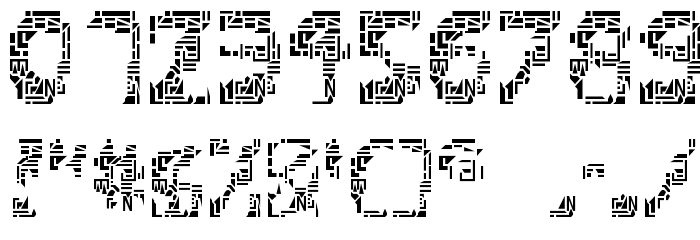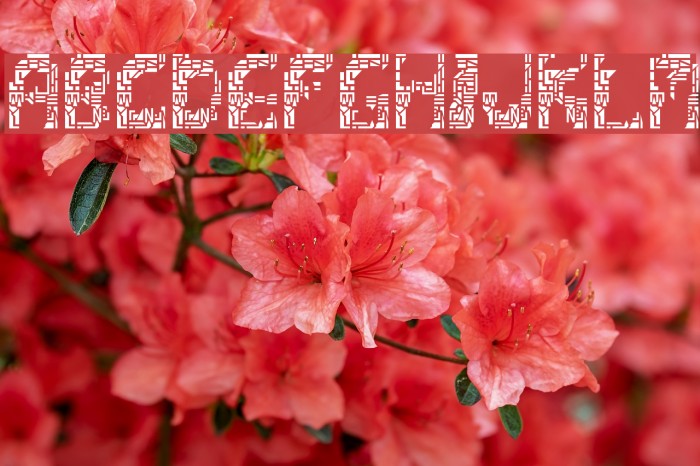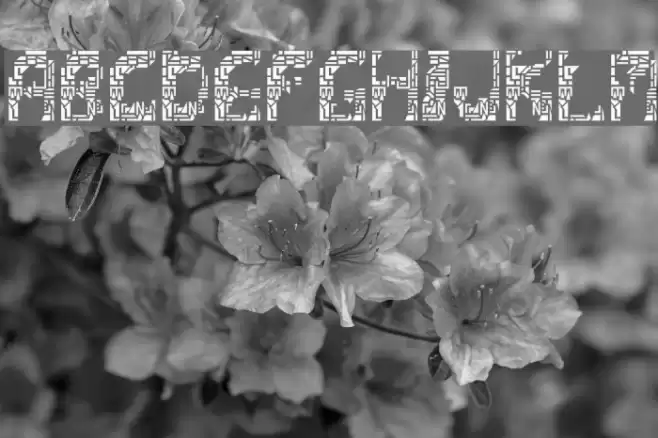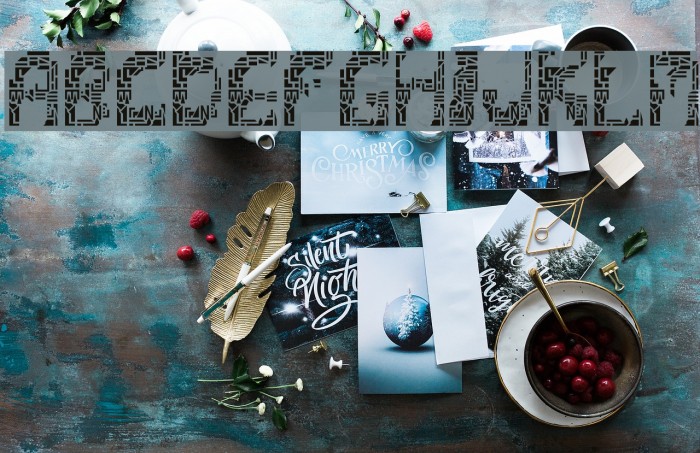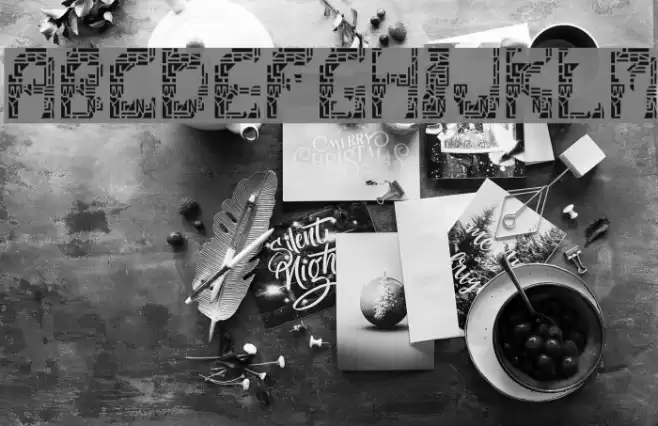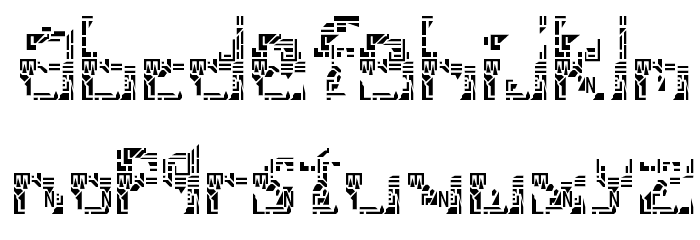
ShatteredSiliconWafers Font
ShatteredSiliconWafers Description
This font features a unique and intricate design that mimics the appearance of shattered silicon wafers. Each character is composed of fragmented, angular shapes that create a mosaic-like effect, giving it a distinct and modern technological aesthetic. The uppercase and lowercase letters maintain a consistent style, with sharp edges and a geometric structure. The numbers and special characters follow the same design principles, ensuring a cohesive look across all glyphs. This font's unconventional style makes it stand out, offering a visually striking option for creative projects.
A fragmented, mosaic-like font with a modern, technological aesthetic from Decorative fonts.
- Proposed Projects: Ideal for tech-related branding, futuristic designs, digital art projects, and innovative advertising campaigns.